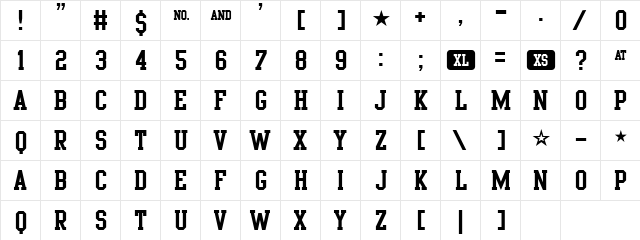
Porn Star Academy Regular
Porn Star Academy offers clean, dependable letterforms without strong stylistic allegiance, making it a practical choice for designers who need flexibility.